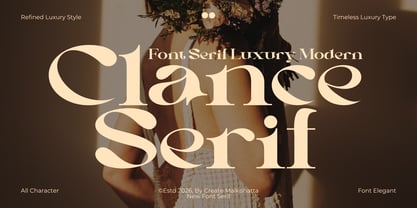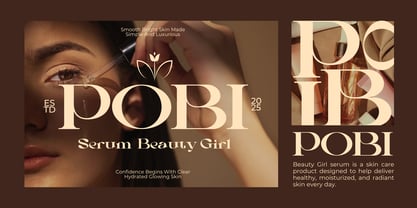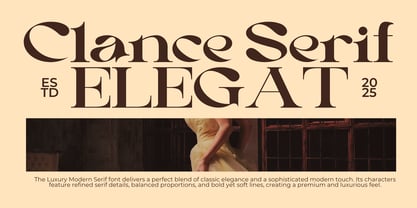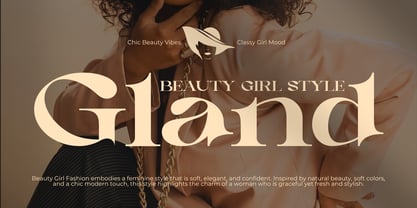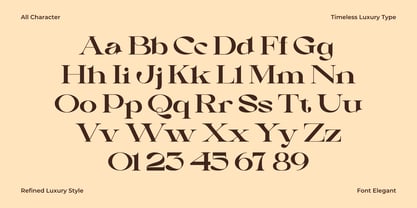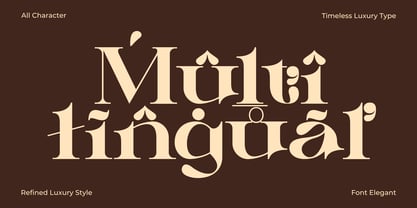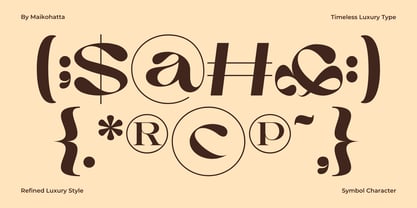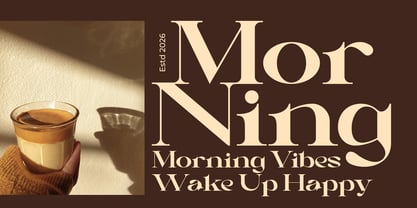
Clance
by Maikohatta
The Clance Font Family was designed by Gilang Ternadho and published by Maikohatta. Clance contains 1 styles. More about this family
Introducing our new product Clance – Modern Luxury Serif
Clance is a modern luxury serif font crafted with refined elegance and timeless beauty. Featuring graceful curves, stylish ligatures, and high-contrast letterforms, this typeface brings a sophisticated aesthetic perfect for premium branding and editorial designs.
Designed to deliver a classy and fashionable impression, Clance works beautifully for logos, wedding invitations, magazines, beauty products, fashion campaigns, social media templates, packaging, and luxury branding projects.
Its unique serif details create a harmonious balance between modern minimalism and classic elegance, making your designs stand out with a high-end professional look.
Designers: Gilang Ternadho
Foundry: Maikohatta